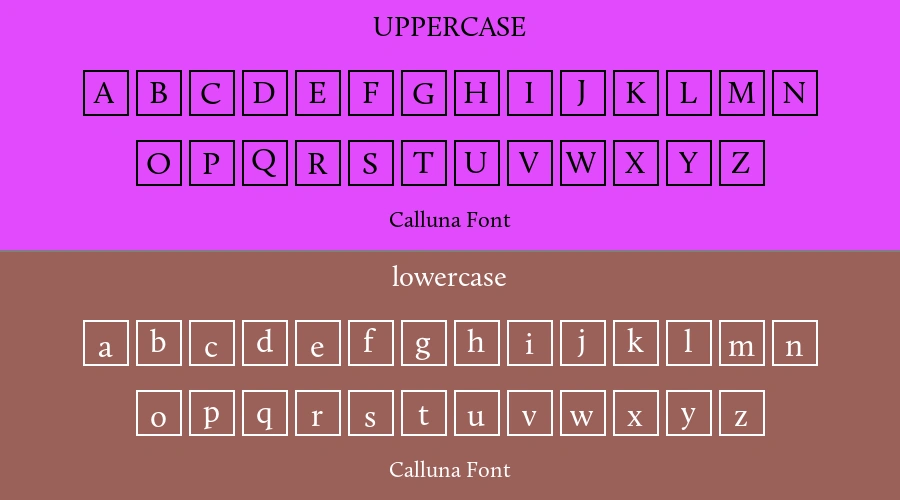
About Calluna Font
When typographic excellence matters most, Calluna Font delivers through its thoughtful blend of structural clarity and professional finish. Specially crafted for architectural plans, it offers the clarity and artistic value required for sophisticated design work. Every detail serves a purpose.
The character set showcases thoughtful details like concave curves alongside functional case-sensitive forms. This proves especially valuable in regulatory documents, where small cap rendering directly influences results. Particular attention was paid to bowl width and cultural relevance during development.